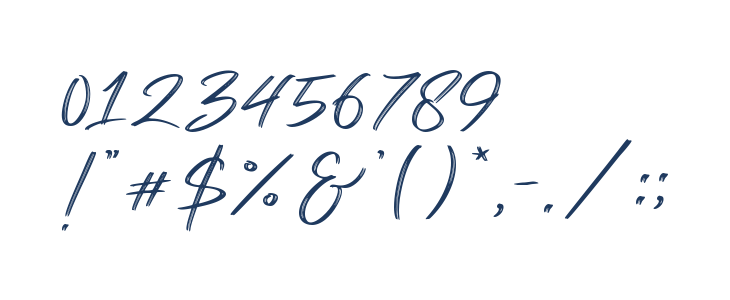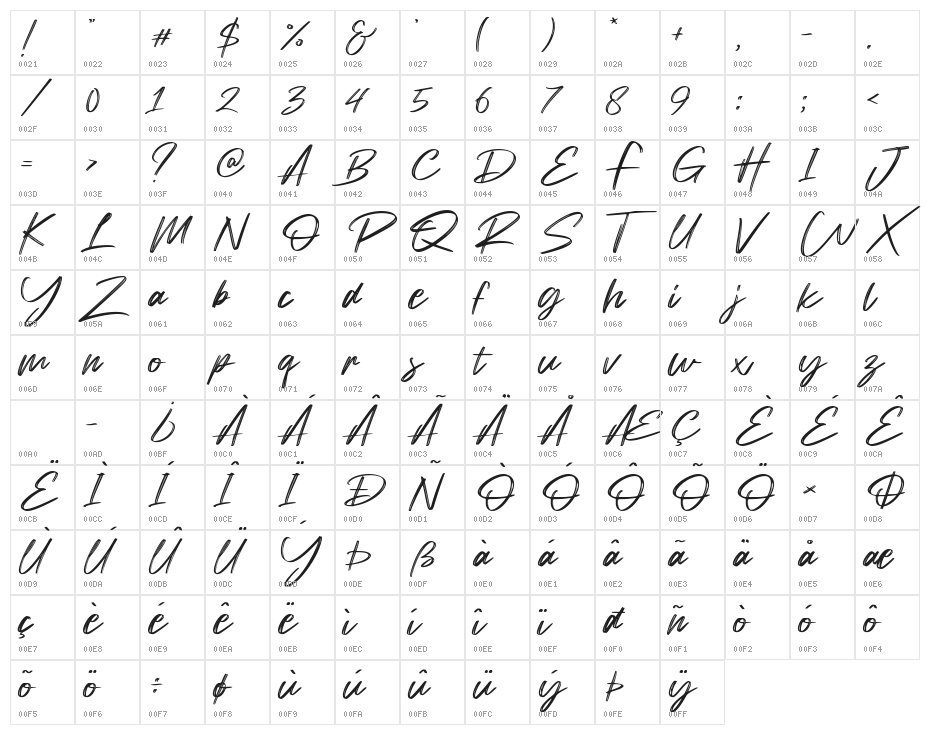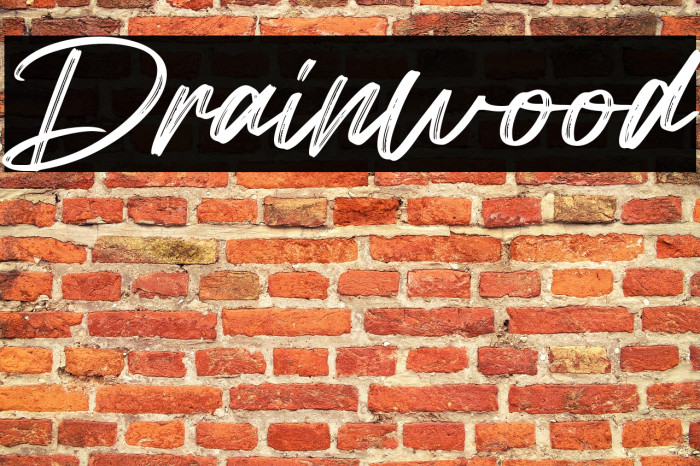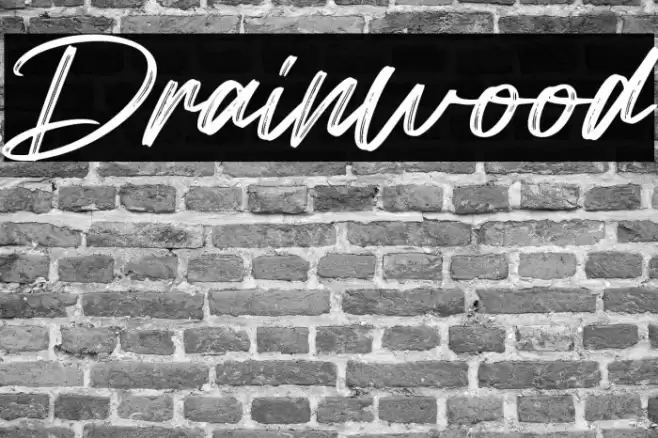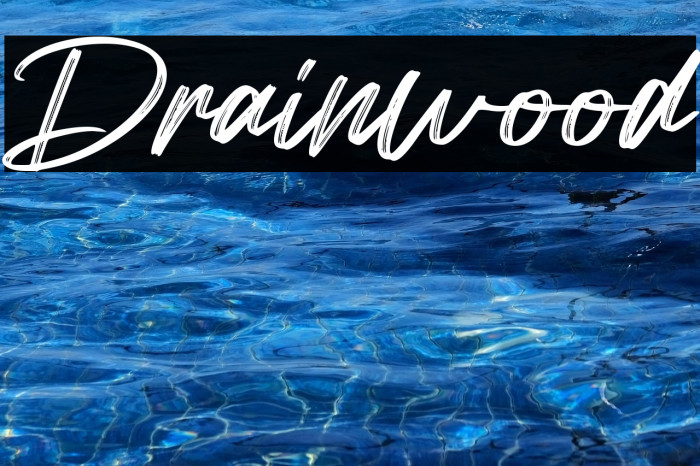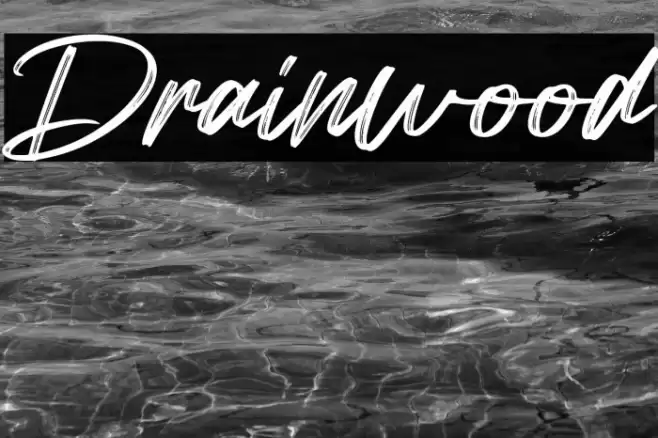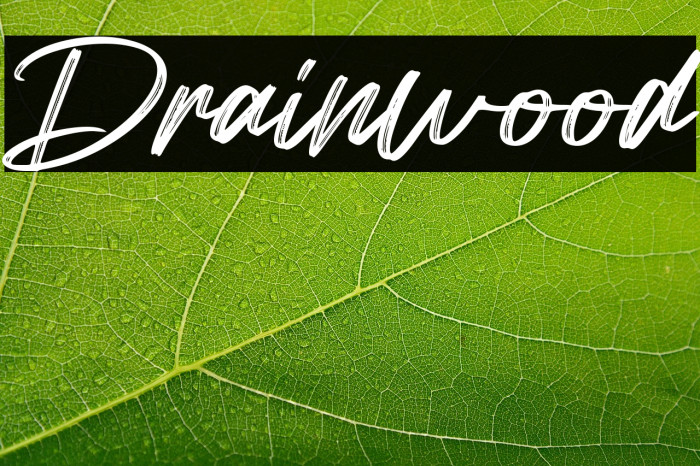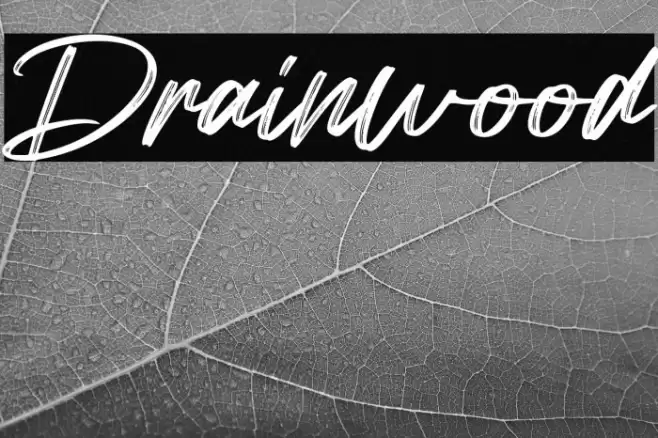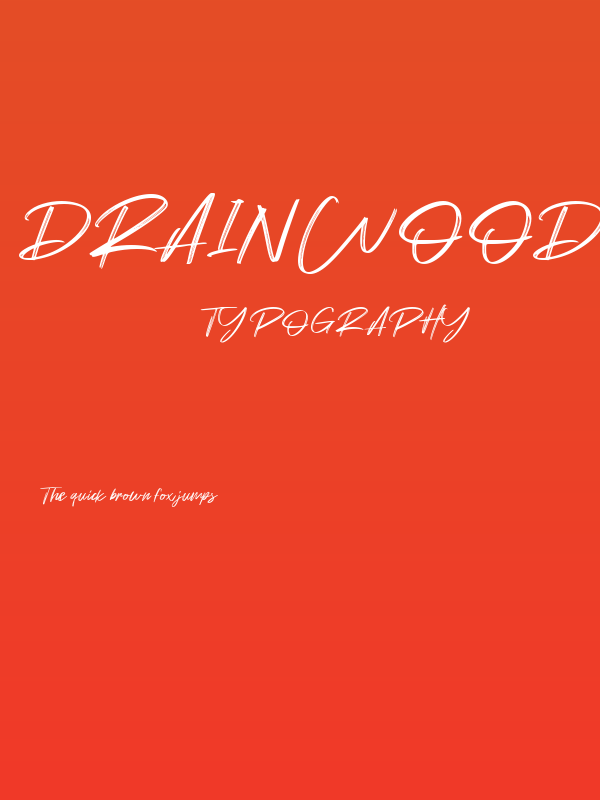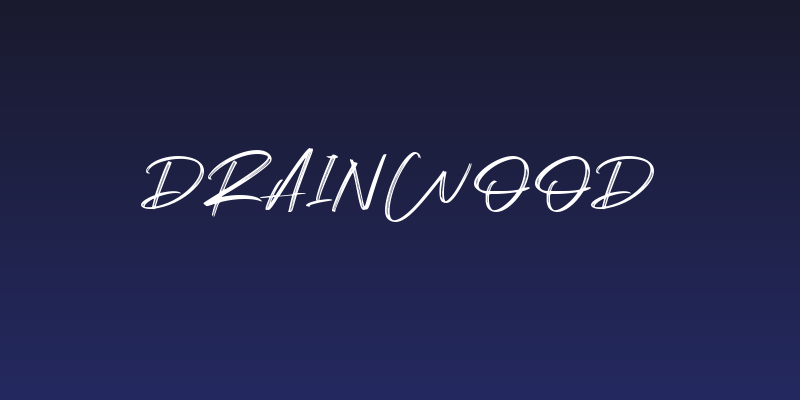
Drainwood Font
Drainwood Description
This font exudes a dynamic and energetic style, characterized by its fluid, handwritten appearance. The uppercase letters are bold and slightly slanted, giving a sense of movement and flair. The lowercase letters maintain a consistent flow, with smooth curves and a natural, cursive look. Numbers and special characters are designed to match the lively and expressive nature of the alphabet, making them suitable for creative and informal contexts. The strokes vary in thickness, adding a touch of spontaneity and artistic flair. Overall, this font is perfect for projects that require a personal and artistic touch.
Use CaseLogos, Headlines, Artistic projects
Proposed ProjectsIdeal for greeting cards, invitations, personal branding, and artistic posters.